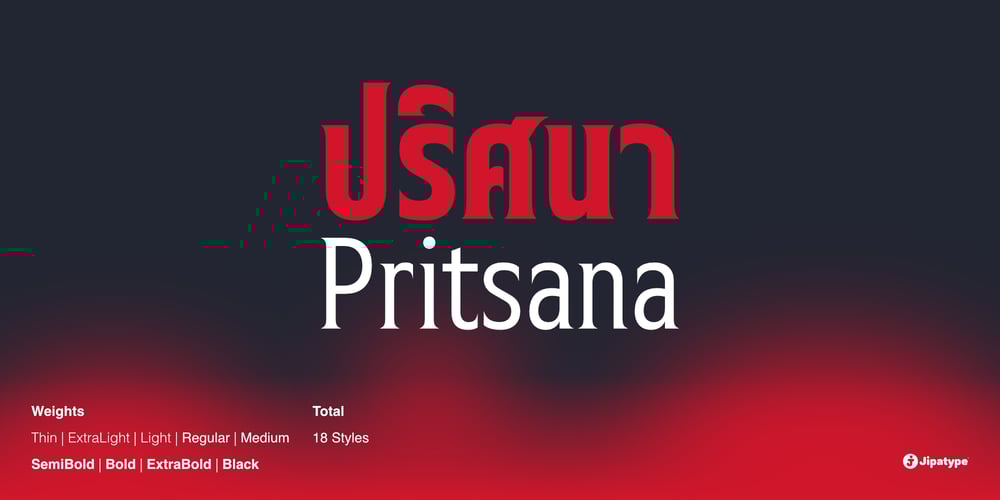
Pritsana Font Family was designed by Anupap Jaichumnan and published by Jipatype. Pritsana contains 18 styles and family package options. Pritsana is a condensed serif typeface characterized by uniform horizontal and vertical line thickness. Its serifs sharply contrast with the outline, accentuated by pointed tips, evoking an aura of mystery, danger, and dark allure. With 18 styles available, accommodating Latin 1 and Thai characters, it caters to diverse publications, online and offline, particularly suited for emphasizing themes in mystery and horror films.